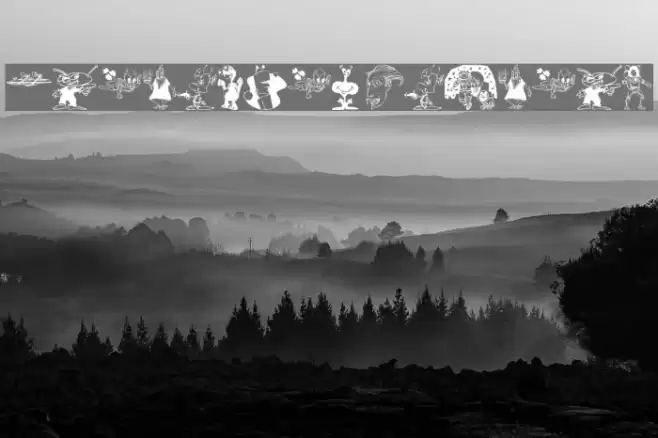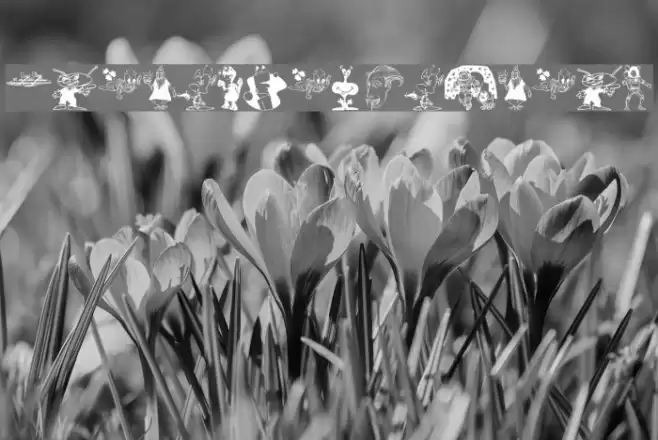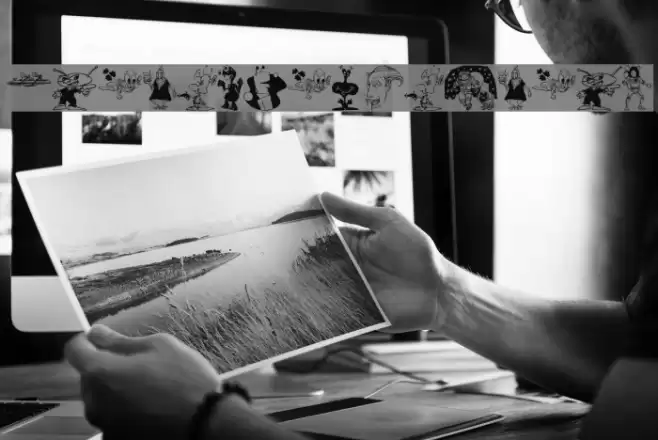
StrangersOnEarth Font
StrangersOnEarth Description
A highly decorative and whimsical display font composed of unique cartoon-style alien and sci-fi character illustrations representing each letter and symbol. Each glyph is a distinct, playful drawing rather than a traditional typographic form.
Cartoonish, alien-themed display font with illustrated characters from Uncategorized fonts.
- Proposed Projects: Children’s books, comic titles, party invitations, sci-fi themed posters, novelty merchandise.
- Overall Style: Decorative, Whimsical, Playful
- Use Case: Logos, Headlines, Posters, Themed graphics